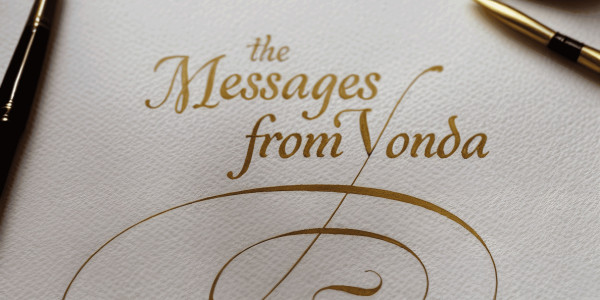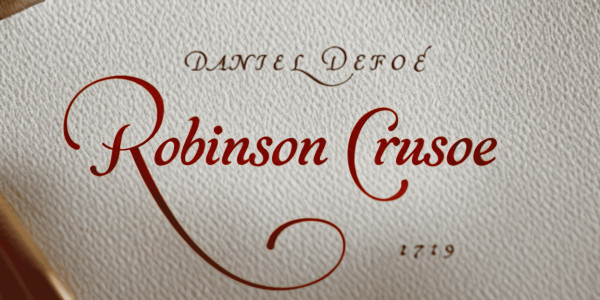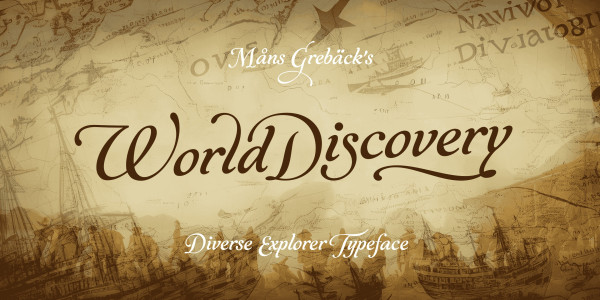
World Discovery Font
World Discovery Font is a stunning calligraphy font that exudes a sense of romance and curiosity. The artistic swirls and slanted serifs come together to create a distinctive and exclusive typeface that will bring an antique charm to your designs.
World Discovery has its origin in 15th-century discovery maps. Designer Mans Greback showcases the art of exploration with the unique and evocative letterforms that make up the World Discovery font.